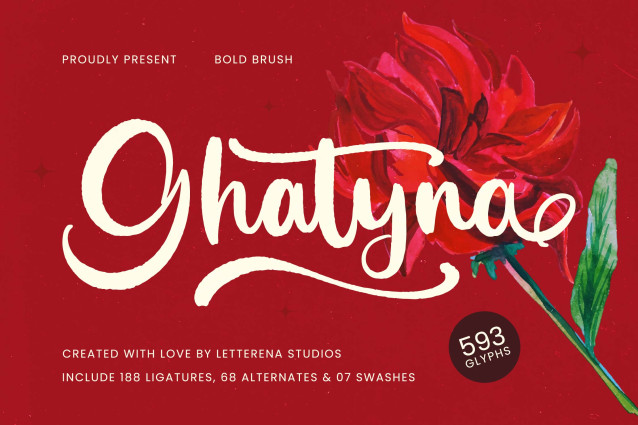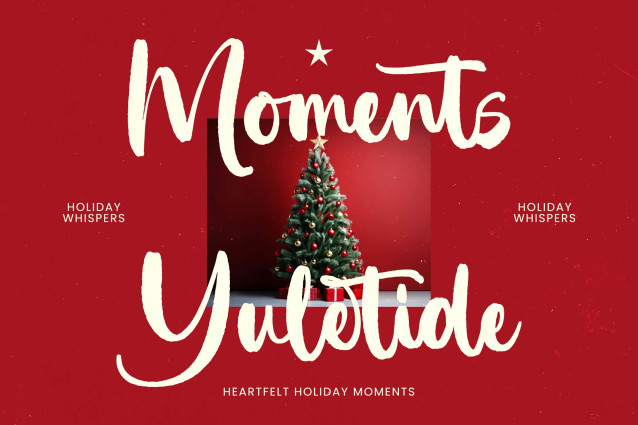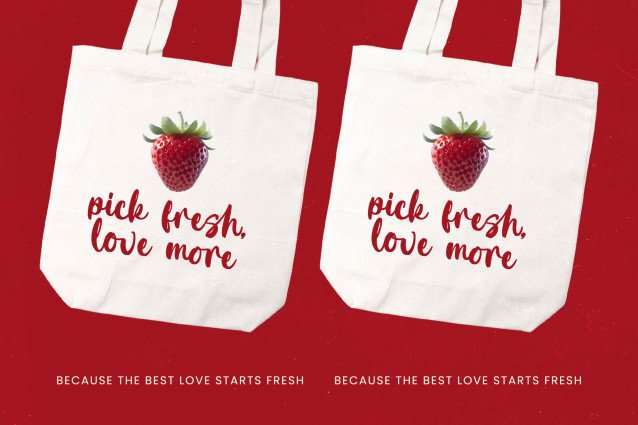
Ghatyna Brush Font
Ghatyna Brush Font, from Letterena, is a Luxury Script font, suitable for any projects such as: logos, branding projects, homeware designs, product packaging, mugs, quotes, posters, shopping bags, t-shirts, book covers, name card, invitation cards, greeting cards, label, photography, watermark, special events, and all your other luxury and beautiful projects that need a Luxury Script taste.